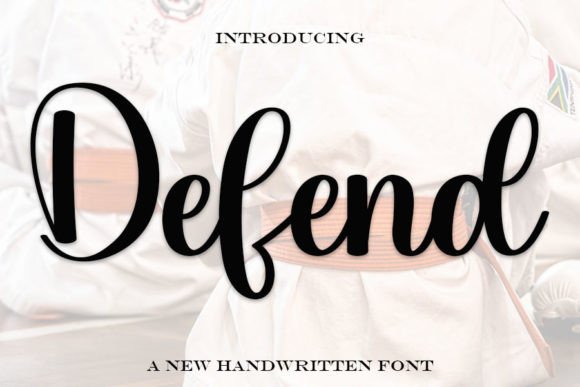
Introducing Defend Font: Elevate Your Designs with Elegance and Timeless Style
Are you on the hunt for a font that adds a touch of sophistication and whimsy to your projects? Look no further than Defend Font, a stunning handwritten font that is sure to capture your heart. With its elegant and distinct style, Defend Font is the perfect choice for designers and crafters looking to create spectacular designs that stand out from the crowd.
The Beauty of Defend Font
Defend Font is a neat and beautiful handwritten font that boasts an incredibly distinct and timeless style. Its elegant touch makes it perfect for a wide range of projects, from wedding invitations and branding materials to social media graphics and digital art. Whether you’re a professional designer or a crafty DIY enthusiast, Defend Font is sure to inspire your creativity and help you create stunning designs that leave a lasting impression.
What Makes Defend Font So Special?
So, what sets Defend Font apart from other fonts out there? Here are just a few reasons why Defend Font is a cut above the rest:
- Elegant and Refined: Defend Font features a sleek and sophisticated design that exudes elegance and refinement. Its smooth lines and flowing curves make it perfect for creating beautiful, high-end designs that are sure to impress.
- Timeless Style: Unlike trendy fonts that quickly go out of style, Defend Font boasts a timeless quality that ensures your designs will remain stylish and relevant for years to come.
- Versatile: Defend Font is incredibly versatile, making it suitable for a wide range of projects and applications. Whether you’re creating a logo, a brochure, or a social media graphic, Defend Font is the perfect choice.
- Easy to Read: Despite its elegant and refined design, Defend Font is incredibly easy to read, making it perfect for body text and other applications where legibility is key.
How to Use Defend Font in Your Designs
Using Defend Font in your designs is incredibly easy. Here are just a few tips to get you started:
- Pair it with Other Fonts: Defend Font pairs beautifully with other fonts, making it easy to create stunning font combinations that add depth and interest to your designs.
- Experiment with Colors: Defend Font looks amazing in a wide range of colors, from bold and bright to soft and pastel. Experiment with different colors to find the perfect look for your design.
- Use it for Headings and Titles: Defend Font is perfect for headings and titles, where its elegant and refined design can really shine.
- Try it for Body Text: While Defend Font is often used for headings and titles, it’s also a great choice for body text. Its easy-to-read design makes it perfect for longer blocks of text.
Defend Font is a perfect choice for designers and crafters looking to add a touch of elegance and sophistication to their projects. Whether you’re creating:
- Wedding Invitations: Defend Font is perfect for wedding invitations, where its elegant and refined design can help set the tone for a beautiful and memorable occasion.
- Branding Materials: Defend Font is a great choice for branding materials, such as logos, business cards, and brochures, where its timeless style can help create a lasting impression.
- Social Media Graphics: Defend Font is perfect for social media graphics, where its easy-to-read design can help you communicate your message clearly and effectively.
- Digital Art: Defend Font is a great choice for digital art, where its elegant and refined design can help add a touch of sophistication and whimsy to your creations.
In conclusion, Defend Font is a stunning handwritten font that is sure to capture your heart. With its elegant and refined design, timeless style, and versatility, Defend Font is the perfect choice for designers and crafters looking to create spectacular designs that stand out from the crowd. So why wait? Fall in love with Defend Font today and start creating beautiful, high-end designs that leave a lasting impression!